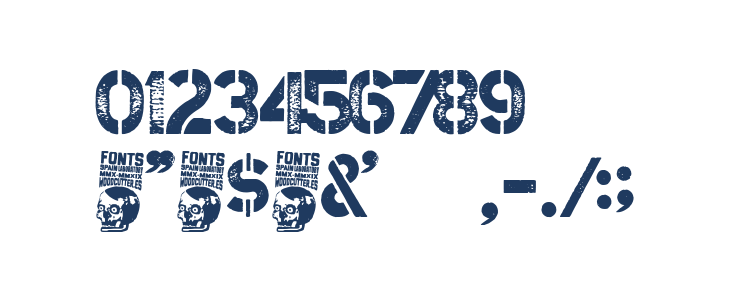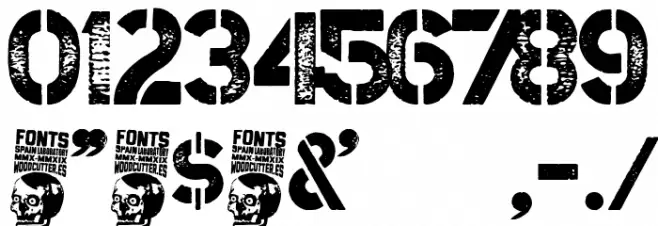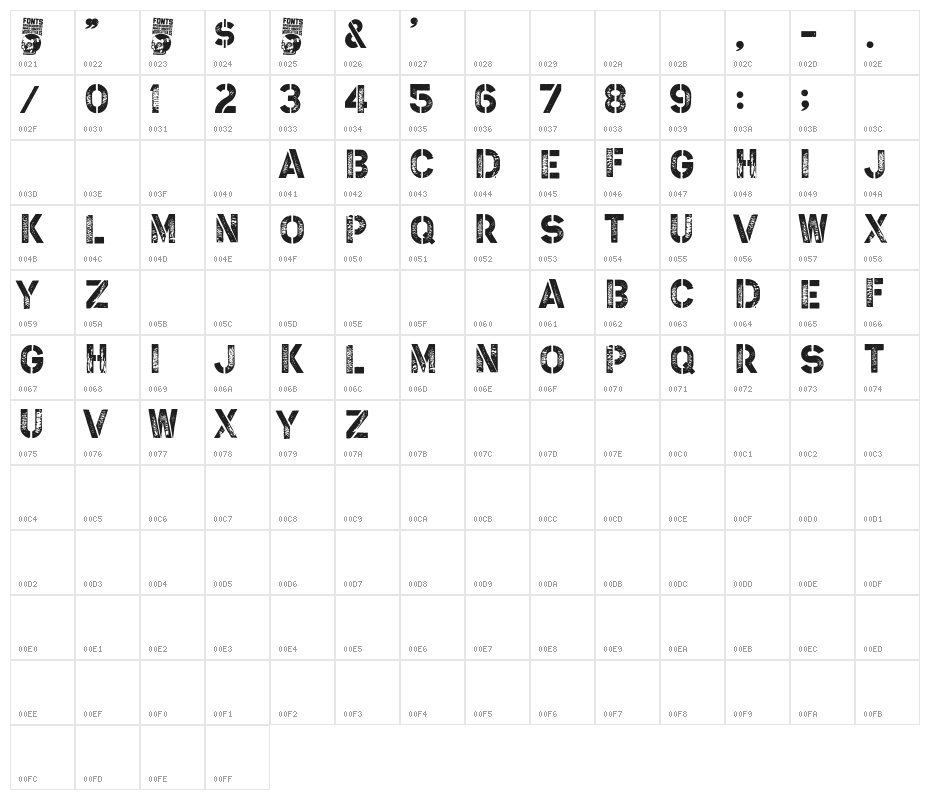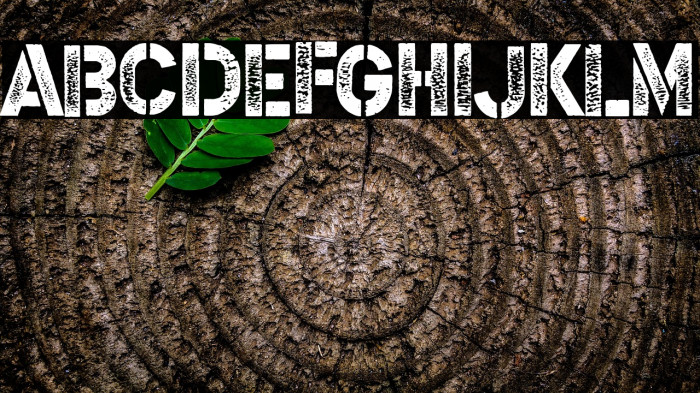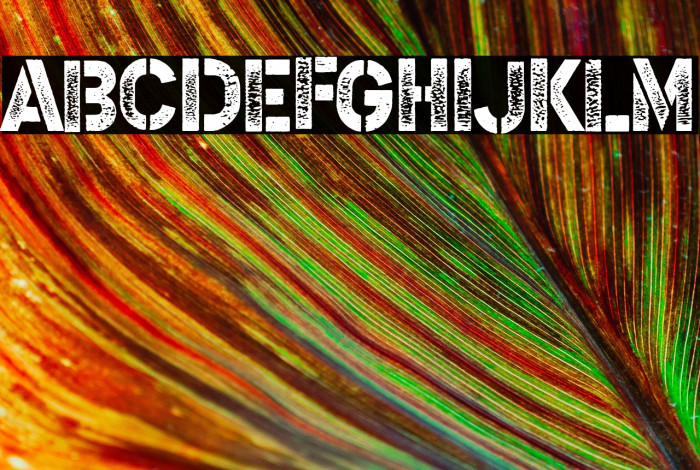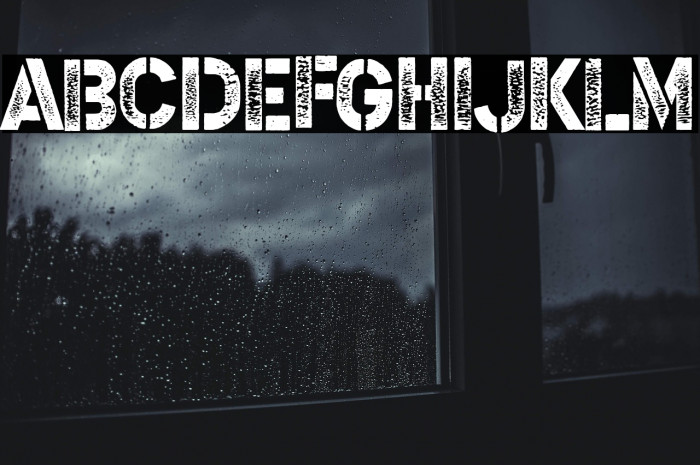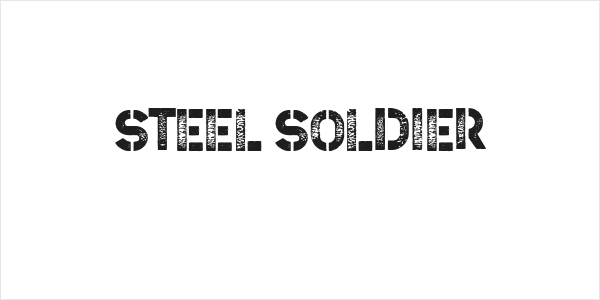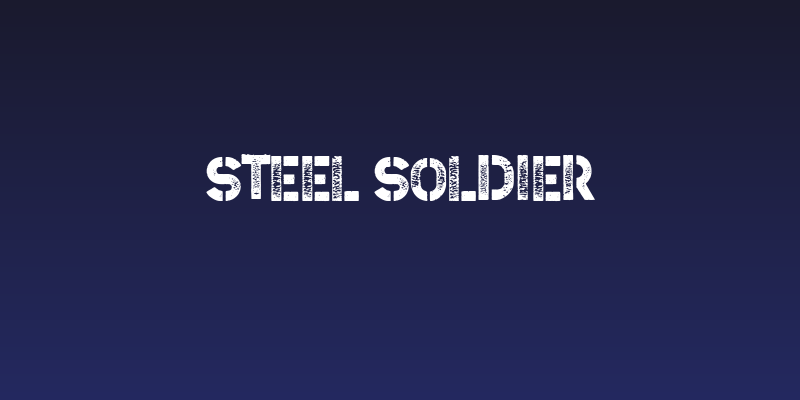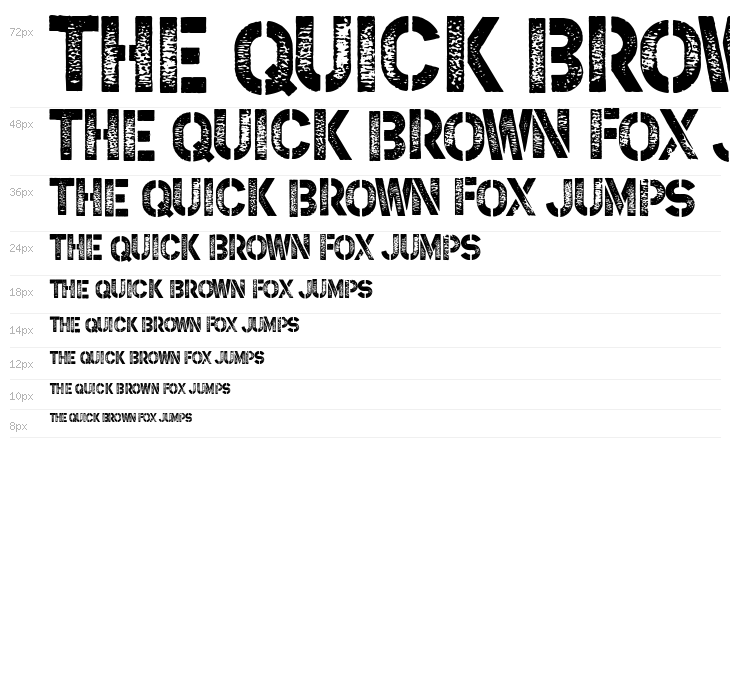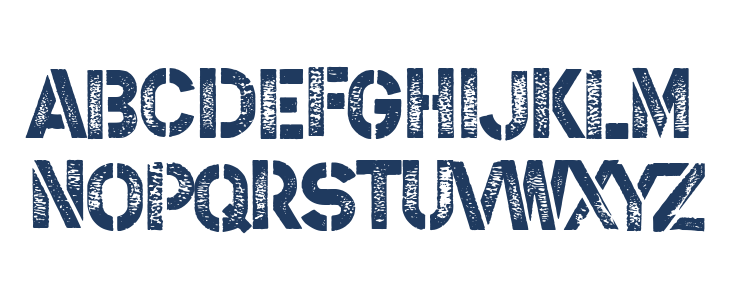
Steel Soldier Font
Steel Soldier Description
This font features a bold, distressed style with a rugged, industrial feel. The characters are blocky and robust, with a weathered texture that gives them a gritty, worn appearance. The uppercase and lowercase letters maintain a consistent width, contributing to a uniform look across the typeface. The numbers and special characters share the same distressed aesthetic, making them suitable for designs that require a strong, impactful presence. The overall design suggests durability and strength, ideal for projects that aim to convey a sense of toughness or resilience.
A bold, distressed font with a rugged, industrial aesthetic from Uncategorized fonts.
- Font: Steel Soldier
- Proposed Projects: Ideal for posters, logos, branding for outdoor or adventure products, and any design needing a strong, gritty impact.
- Overall Style: Industrial, Rugged